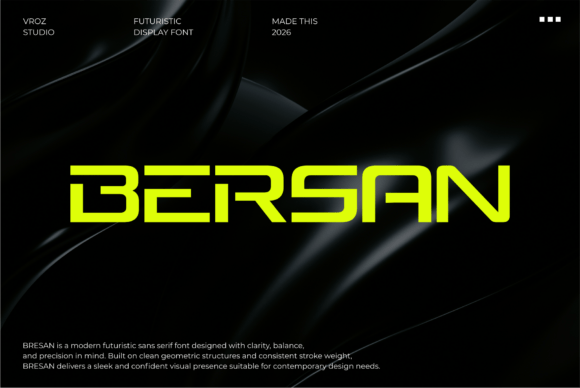
Discover the Futuristic Charm of BERSAN Font
Have you ever been in the middle of a design project, and suddenly, you’re stuck on finding the perfect font? I recall a recent experience where I was working on a futuristic tech branding project, and my client requested a font that screamed “innovation” and “modernity.” After hours of searching, I stumbled upon BERSAN Font, and it was love at first sight! ✨ In this article, we’ll dive into the world of BERSAN, exploring its features, uses, and what makes it a top choice for designers, crafters, and creative hobbyists.
A Futuristic Modern Sans Serif Display Font
BERSAN is a geometric, modern sans serif display font designed with clarity, precision, and contemporary design needs in mind. Its clean cuts, smooth transitions, and strong character make it perfect for modern digital environments. Whether you’re working on branding, technology visuals, gaming graphics, posters, UI/UX layouts, or web interfaces, BERSAN delivers a confident and forward-looking visual style that stands out while maintaining a clean and professional appearance.
What I Love About BERSAN Font
• ✅ Versatility: BERSAN pairs beautifully with other modern sans serif or classic serif fonts, giving designers flexibility when building sophisticated layouts.
• ✅ Geometric structure: Its geometric design ensures a clean and precise look, making it ideal for digital products and modern layouts.
• ✅ OpenType features: BERSAN supports a range of OpenType features, including stylistic alternates and glyphs, allowing for creative experimentation.
• ✅ Wide range of applications: From branding and technology projects to gaming visuals and posters, BERSAN is a reliable choice for various creative projects.
While BERSAN is an excellent font, there are a few minor quirks to consider: 🤔
• ⚠️ Limited suitability for body text: Due to its geometric and modern design, BERSAN might not be the best choice for lengthy body text. It’s better suited for headlines, titles, and short paragraphs.
• ⚠️ Requires careful kerning: As with any font, kerning is essential to ensure BERSAN looks its best, especially in larger sizes.
The Story Behind BERSAN Font
BERSAN was designed with the goal of creating a futuristic, modern sans serif display font that embodies innovation and precision. Its designer aimed to craft a font that would be both versatile and timeless, suitable for a wide range of creative projects. While the actual design process is shrouded in mystery, it’s clear that BERSAN was created with the needs of modern designers in mind.
What is BERSAN Font best suited for? BERSAN is ideal for branding, technology projects, gaming visuals, posters, UI/UX design, web design, digital products, and modern layouts.
Can I use BERSAN for body text? While BERSAN can be used for short paragraphs, it’s better suited for headlines, titles, and display text due to its geometric and modern design.
Does BERSAN support OpenType features? Yes, BERSAN supports a range of OpenType features, including stylistic alternates and glyphs, allowing for creative experimentation.
Can I pair BERSAN with other fonts? Yes, BERSAN pairs beautifully with other modern sans serif or classic serif fonts, giving designers flexibility when building sophisticated layouts.